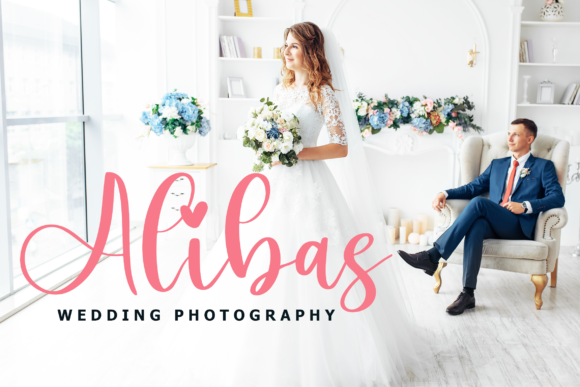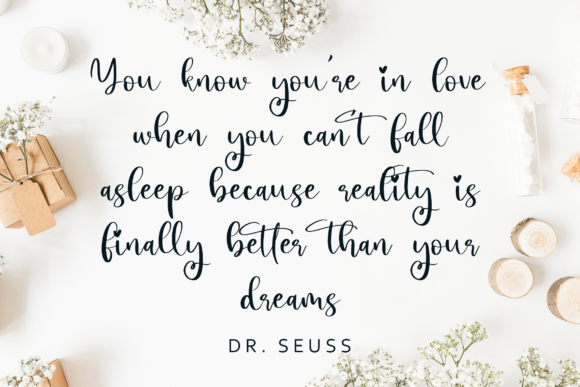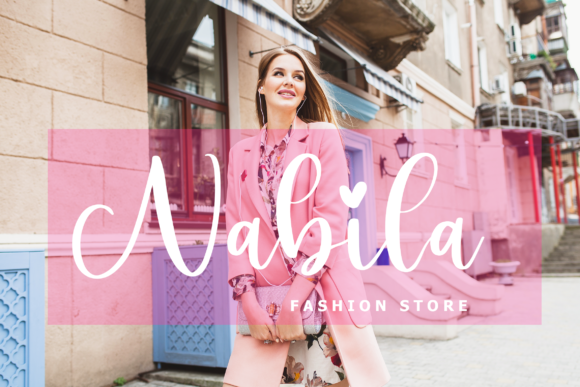
About Chintya Font
Chintya is an exquisite and unique handwritten font that exudes distinctiveness, delicacy, and timelessness. Here are some reasons why you’ll fall in love with Chintya and how it can enhance your designs:
1. Distinctiveness: Chintya stands out with its individuality and one-of-a-kind design. Its unique letterforms and charming style set it apart from more common fonts, making it a great choice for projects that require a standout and memorable look.
2. Delicacy and Grace: Chintya’s delicate strokes and graceful curves give it a sense of refinement and elegance. Its flowing lines and intricate details add a touch of sophistication to any design it graces.
3. Versatility: Chintya’s timeless appeal allows it to complement a wide range of design projects. Whether you’re designing wedding invitations, thank you cards, quotes, logos, or business cards, Chintya will add a touch of timeless charm to your work.
4. Wedding Perfection: With its delicate and elegant nature, Chintya is particularly well-suited for wedding-related designs. It can add a sense of romance and beauty to wedding invitations, menus, place cards, and more.
5. Thoughtful Design: Chintya’s careful design and attention to detail are evident in its charming glyphs and alternates. These thoughtful touches can enhance the overall look of your designs and give them a handcrafted feel.
6. Warm Greeting Cards: Chintya’s distinctive yet inviting style makes it an excellent choice for greeting cards and heartfelt messages. Its unique charm can convey warmth and sincerity to your recipients.
7. Captivating Logos: Incorporate Chintya into your branding materials to give your business an authentic and personal touch. Its distinctiveness can help create a logo that stands out and leaves a lasting impression.
8. Genuine Handwritten Feel: Chintya’s design captures the essence of genuine handwritten calligraphy, adding an authentic touch to your designs. It can create a connection with your audience through its personal and human feel.
Embrace Chintya’s distinctiveness, delicacy, and timeless appeal to elevate your designs with a touch of elegance and charm. Whether it’s for special occasions, branding, or personal projects, Chintya’s unique character will leave a lasting impact. Let its graceful charm and intricate details transform your designs into works of art that enchant and captivate.